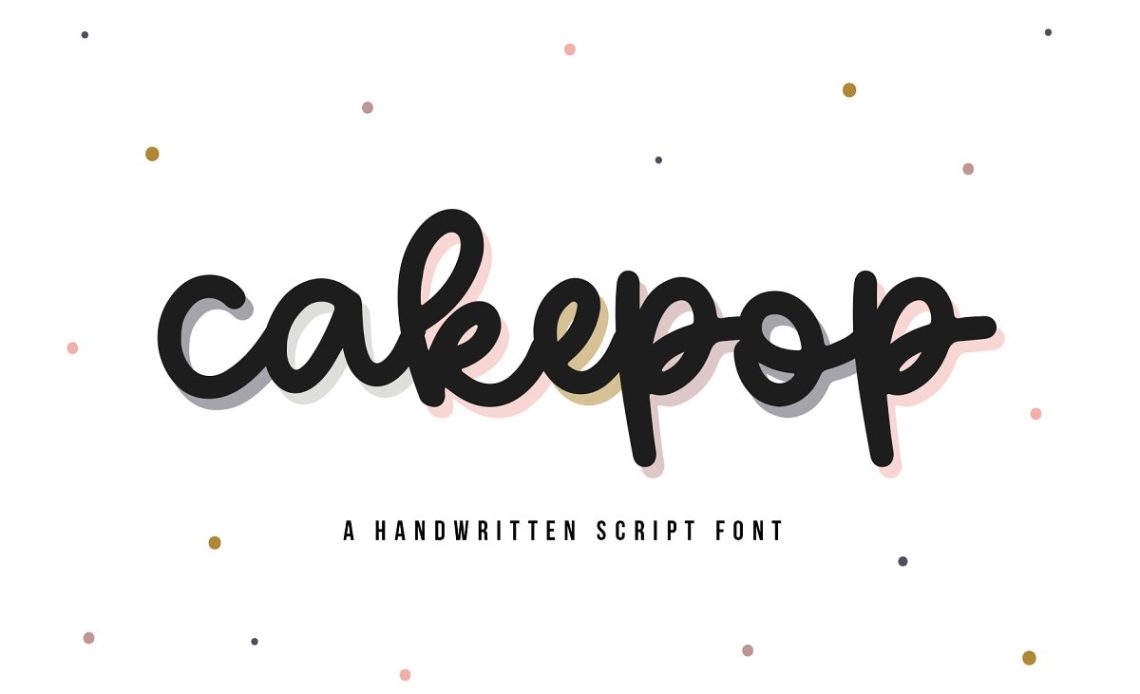
Indulge in the sweet and whimsical charm of Cakepop, the latest addition to our Font For Script collection. Created by the talented Kaitlynn Albani, Cakepop is the perfect handwritten script font to add a touch of playfulness and creativity to your projects.
Crafters, designers, and entrepreneurs will fall in love with Cakepop's adorable and unique features. With its fun, curly letters, Cakepop is an eye-catching font that will take your branding, quotes, prints, logos, social media, kid's decor, clothing, and svg designs to the next level.
Whether you're creating invitations for your child's birthday party, designing your brand's logo, or adding a personal touch to your social media posts, Cakepop is the perfect font to express your personality and creativity. Its versatility and adaptability make it a must-have for any project or occasion.
In summary, Cakepop is more than just a font. It's a playful and captivating experience that will inspire and delight you and your audience. Don't miss the chance to add some sweetness to your projects with Cakepop. Download it now and let your imagination run wild!